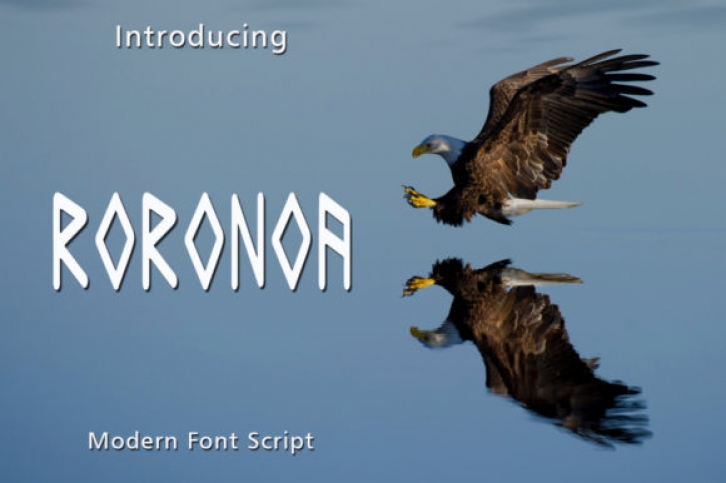
Roronoa is an interesting and unique display font. It celebrates abstract shapes in all their eclectic beauty. Add this font to your creative ideas and notice how it will make them stand out!